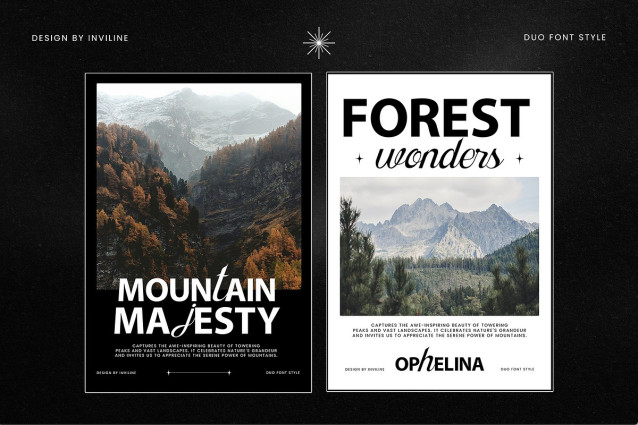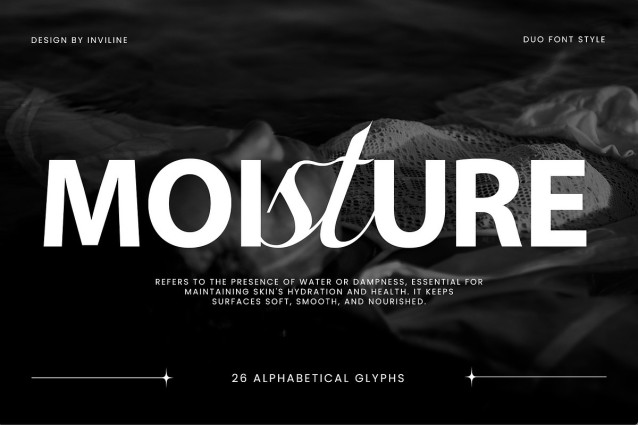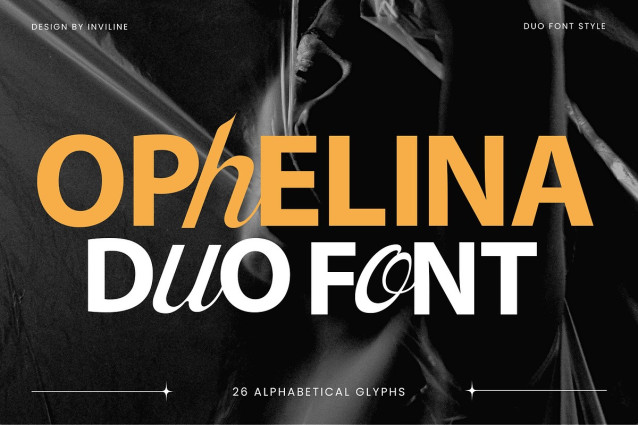
Ophelina Font Duo
Ophelina Font Duo is an elegant duo font that combines the elegance of calligraphic script with the boldness of a modern sans serif. This combination of styles makes Ophelina perfect for luxury branding, wedding invitations, fashion logos, design editorials, and a variety of creative projects seeking a sophisticated and versatile feel.